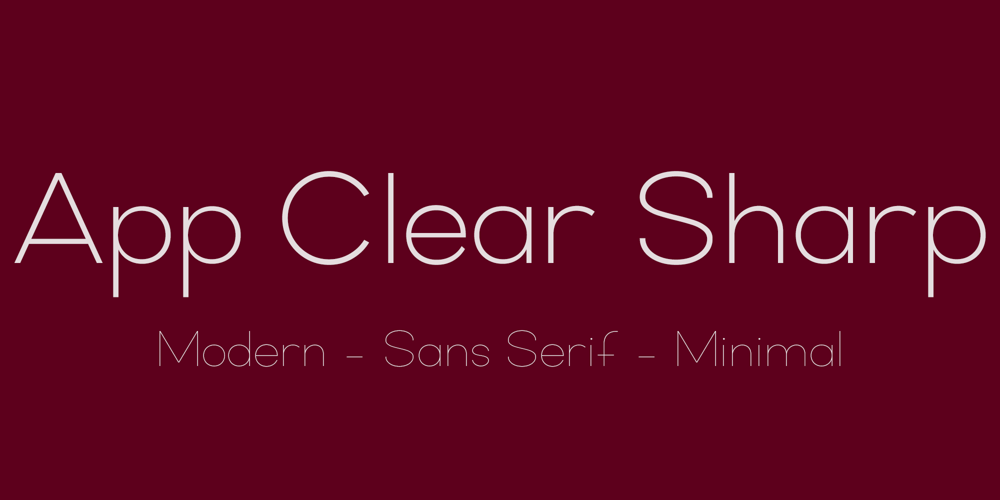
App Clear Sharp
App Clear Sharp font
App Clear Sharp Font Family was designed by Reza Bohloul and published by Bohloul Arabic Type Design. App Clear Sharp contains 10 styles and family package options. AppClearSharp font family is a very simple and modern. It is very good for app’s and screen’s.Try it, you love it.